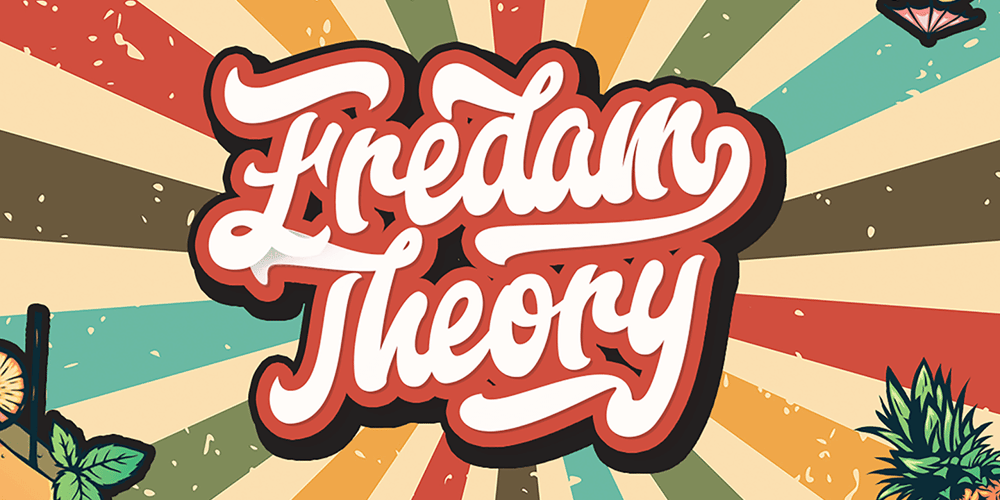
Freedam Theory Font Family was designed by Virgiawan Listanto and published by Stringlabs Creative Studio. Freedam Theory contains 1 styles and family package options. Fredam Theory is a Retro bold script with Groovy style, unique design taste and combine with classic retro style of the 80s, trendy, vintage, and sporty. The Fredam Theory is perfect for retro lovers, besides this font is also perfect if used for brands such as: barbershop, motorcycle club, clothing, logo brand, coffee shop, shoe brands, hipster and many more.